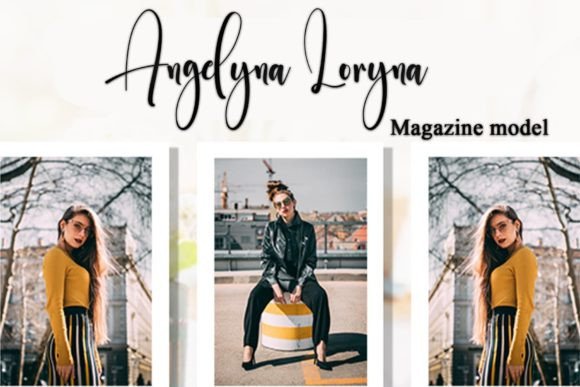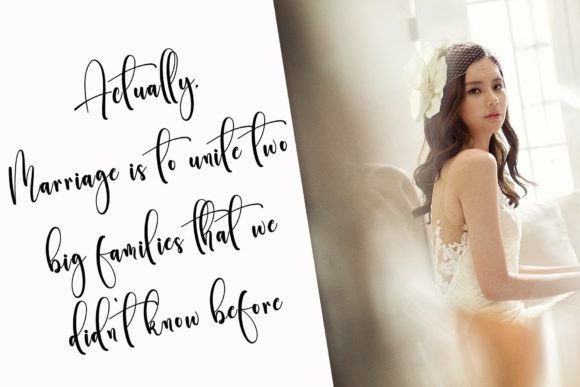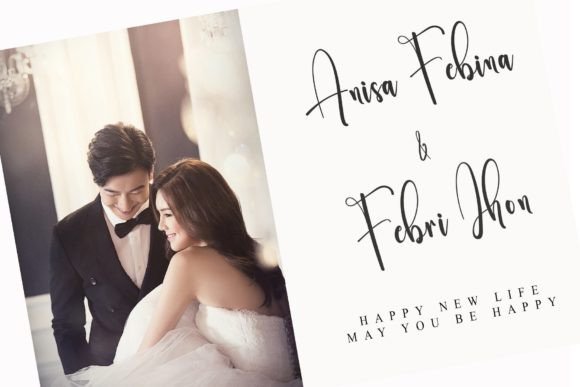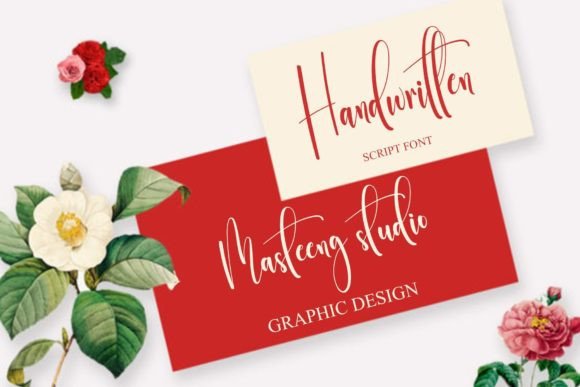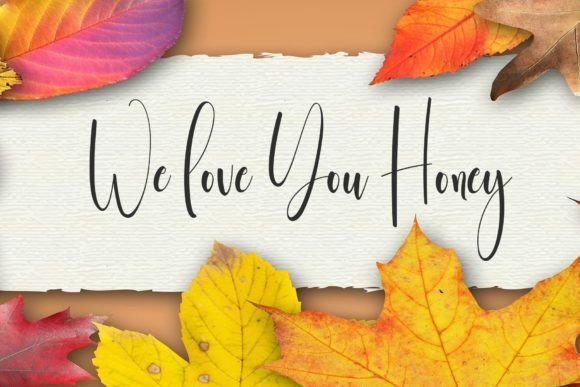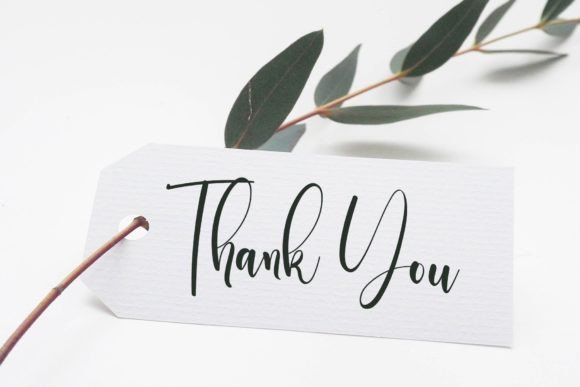
Sweet Master Font
“Sweet Master” is an enchanting handwritten font that captures the essence of romance and charm. Its delicate and graceful appearance makes it a versatile choice for various design applications, from greeting cards to headlines. With its romantic feel, “Sweet Master” adds a touch of elegance and sophistication to your projects, creating a warm and inviting atmosphere.
The font’s versatility allows it to adapt to different contexts, making it suitable for a wide range of creative endeavors. Whether you’re designing wedding invitations, love letters, posters, or any other romantic-themed project, “Sweet Master” brings a sense of enchantment and allure, making your designs stand out.
One of the standout features of “Sweet Master” is its ability to convey emotions and create a romantic ambiance. Its flowing and expressive characters evoke feelings of love and tenderness, adding depth and personality to your text. The font’s readability ensures that your message is communicated with clarity and style, enhancing the overall impact of your design.
By incorporating “Sweet Master” into your projects, you’re infusing them with a touch of romance and sophistication. Its enchanting handwritten style adds a sense of intimacy, making your designs visually appealing and heartfelt. Whether you’re a graphic designer, a storyteller, or an individual working on personal projects, “Sweet Master” offers you a charming and elegant font choice to enhance your creative endeavors and create designs that captivate hearts and evoke romantic feelings.